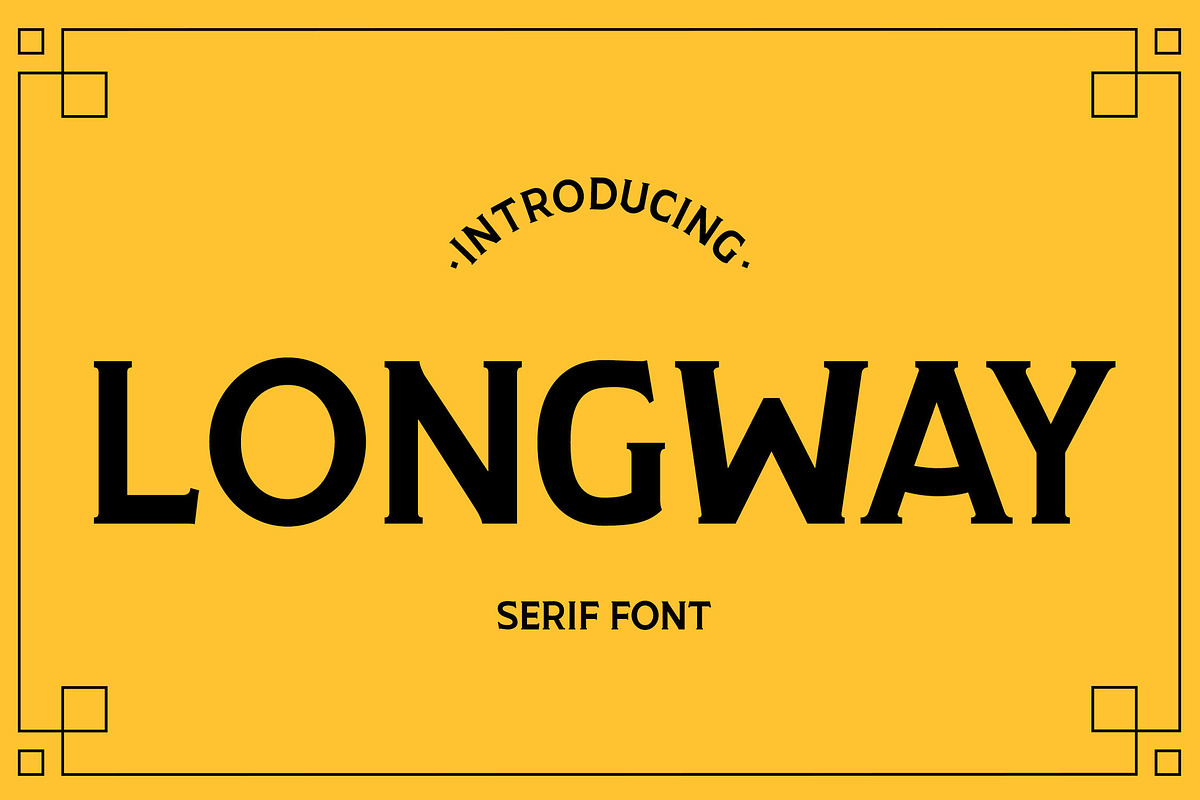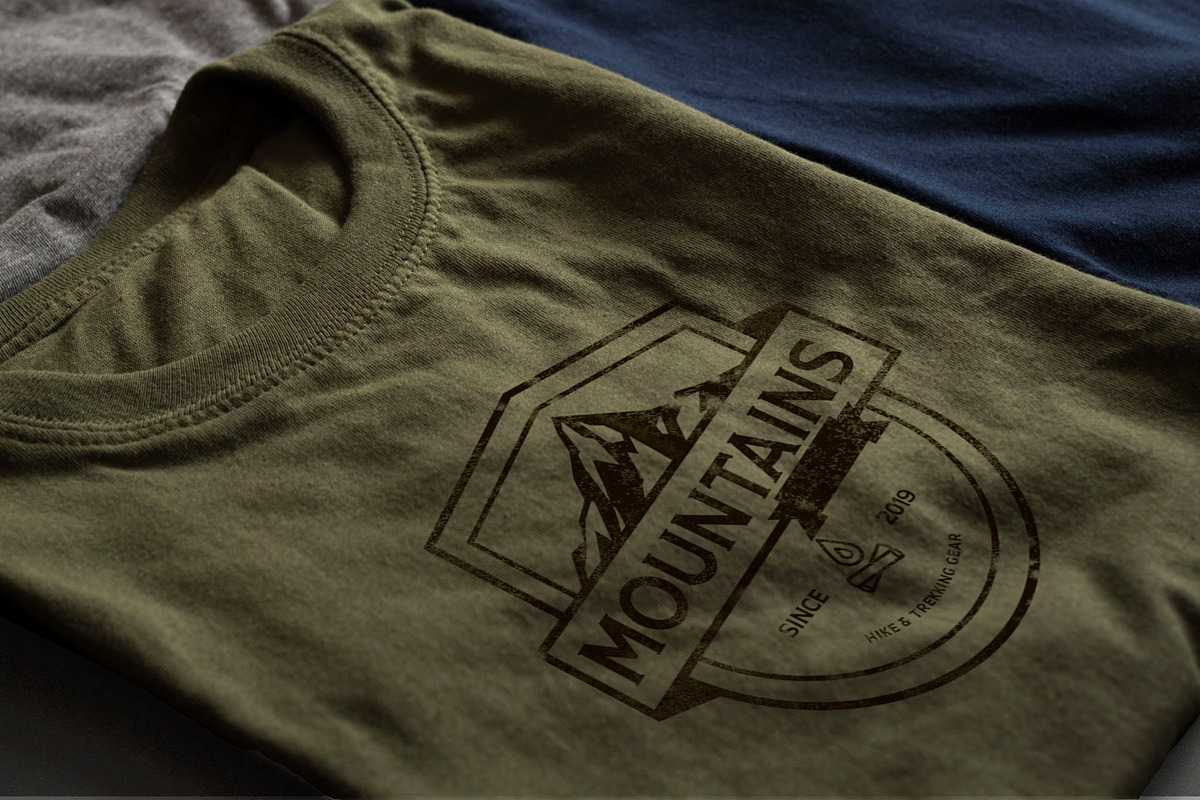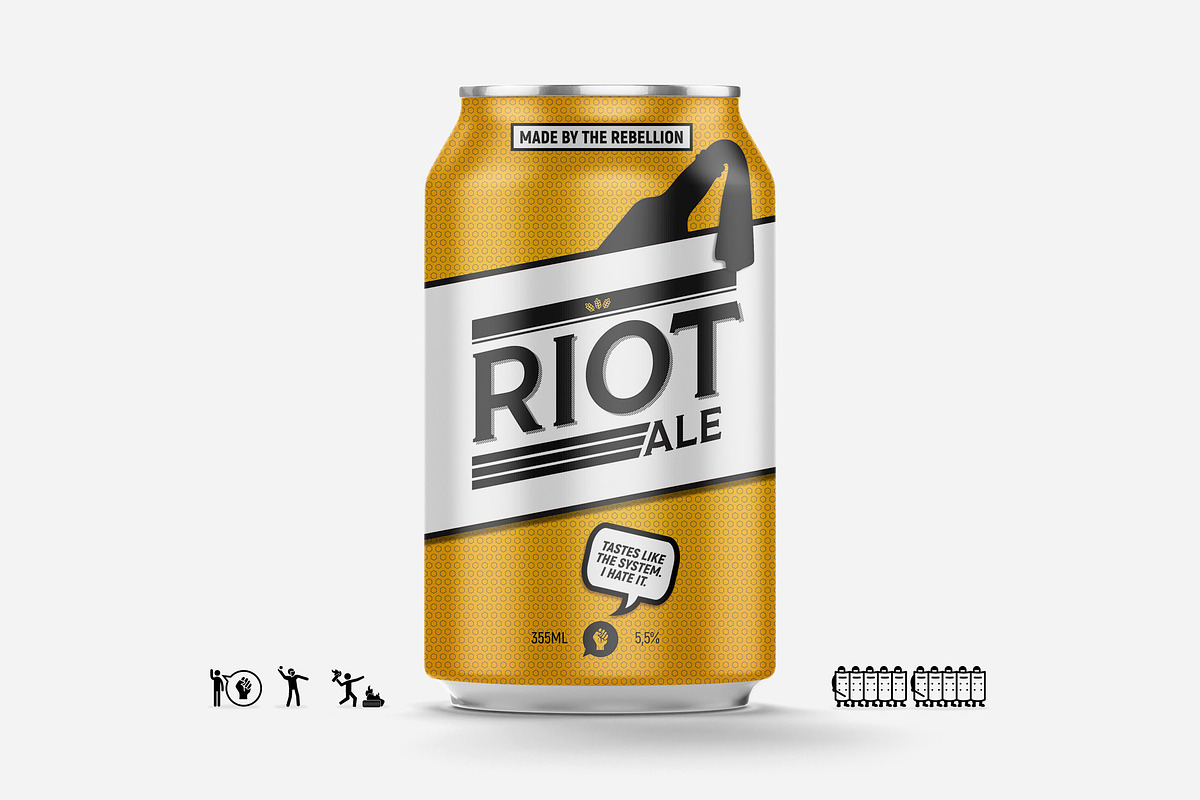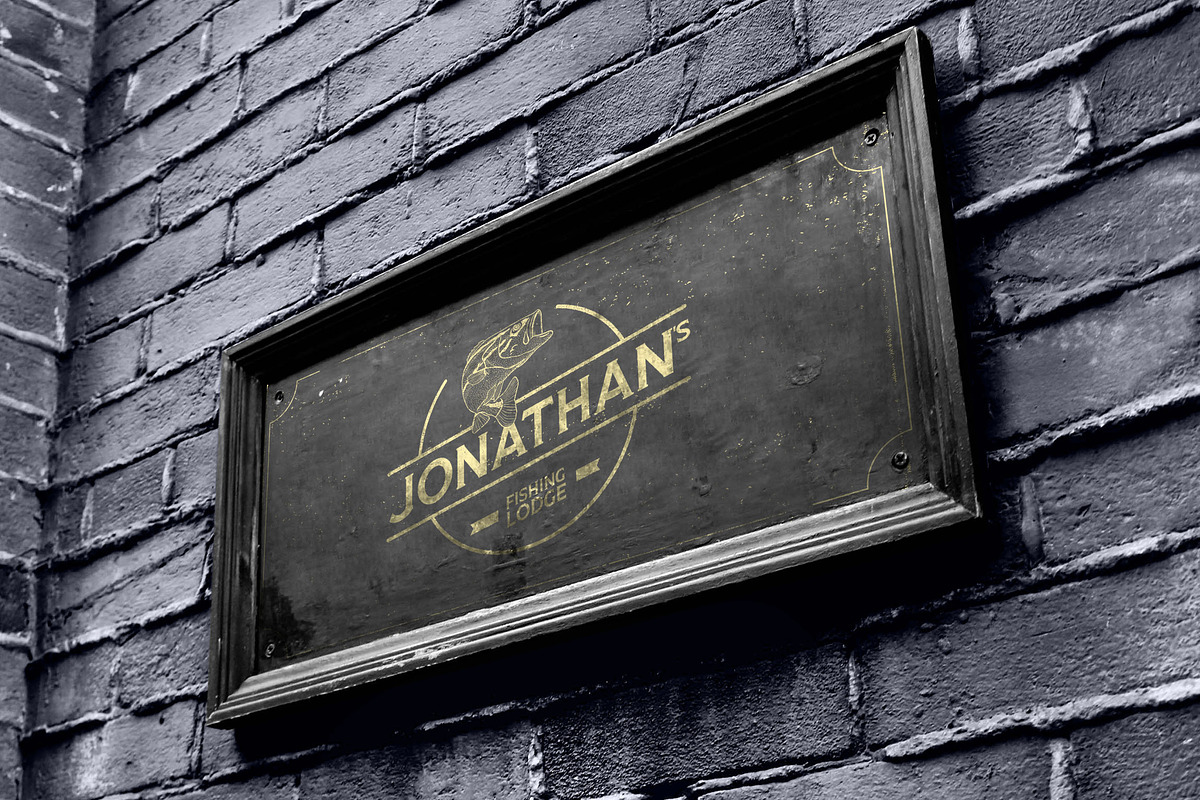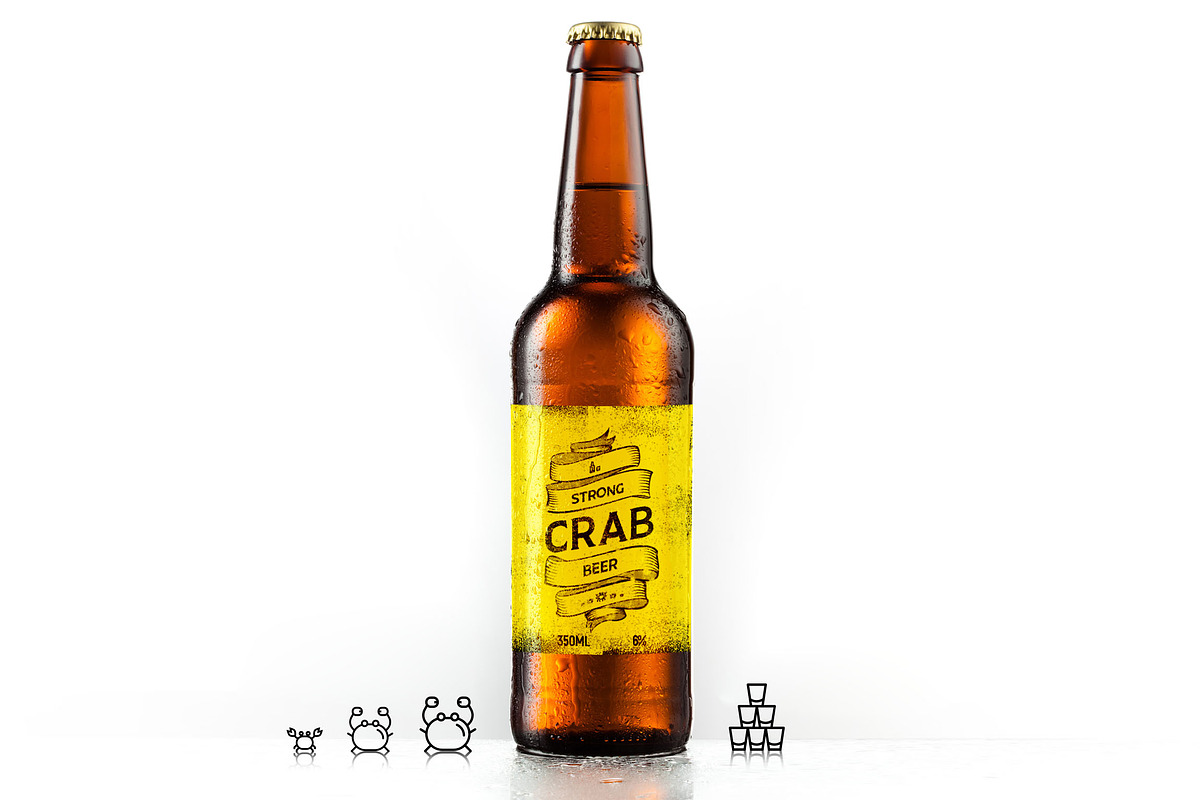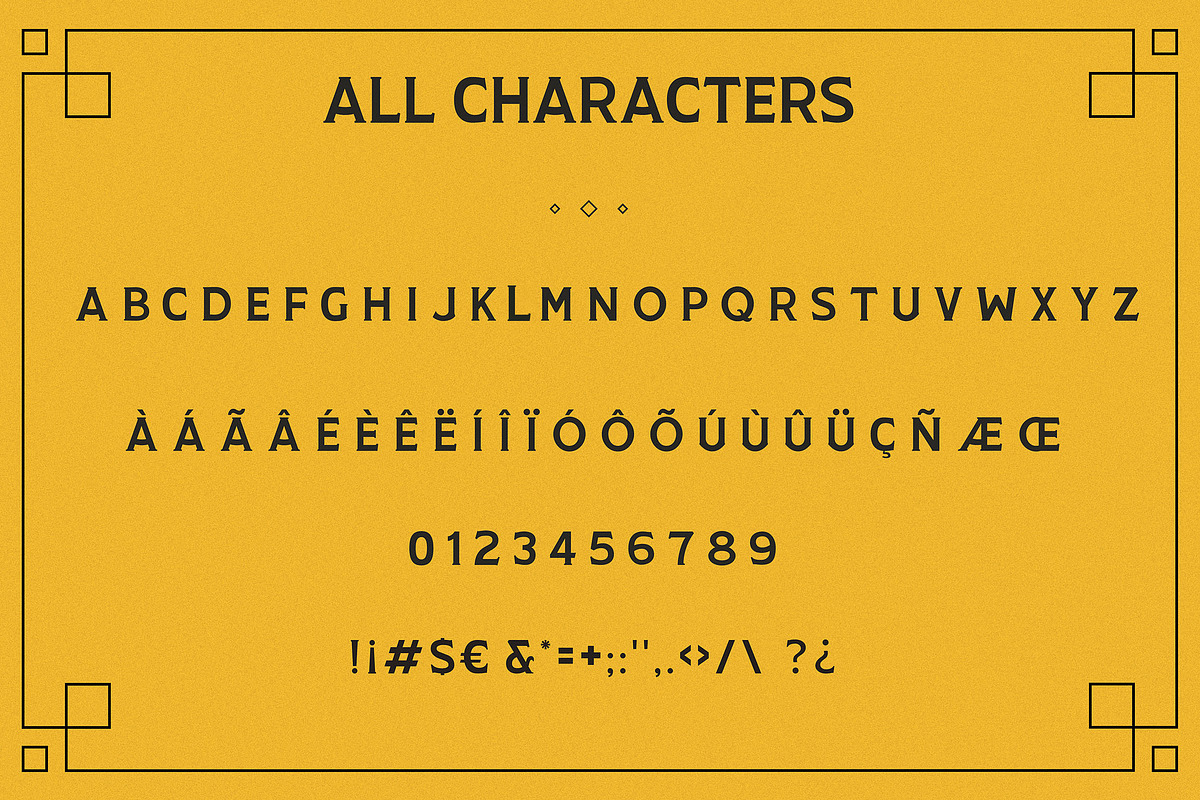
Longway - Serif Font
Introducing: Longway an all caps Serif Font with a little of a vintage feel to it. Designed for packages, badges, headline, posters and so much more!
Language Support: English, Spanish, French and Portuguese.